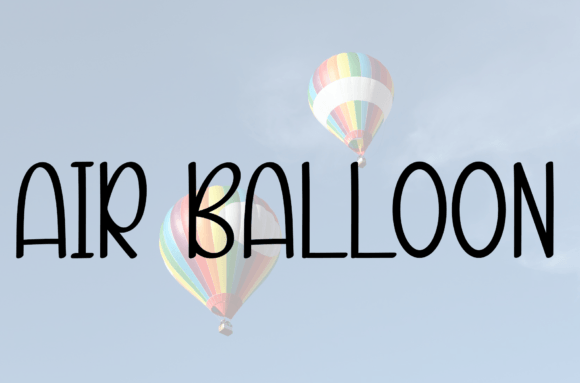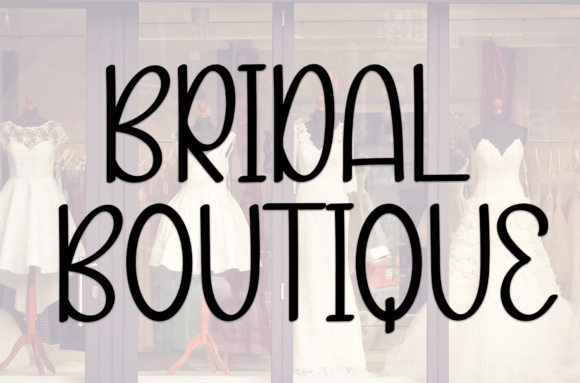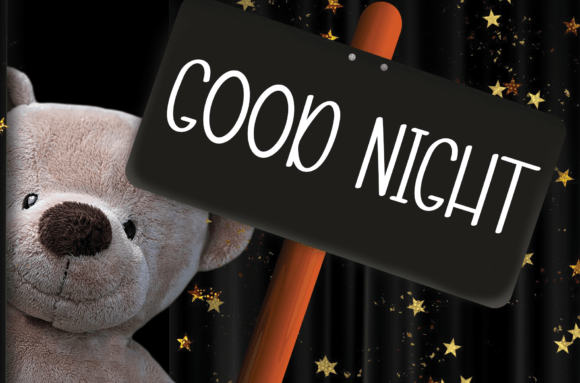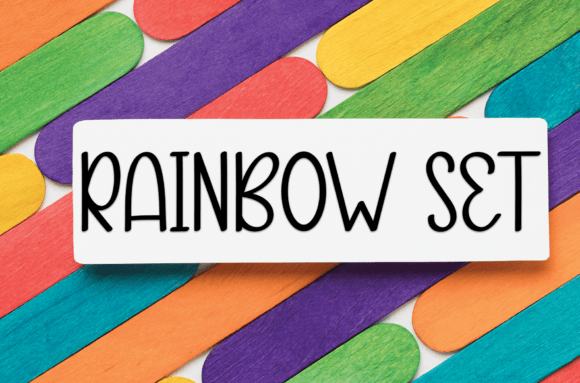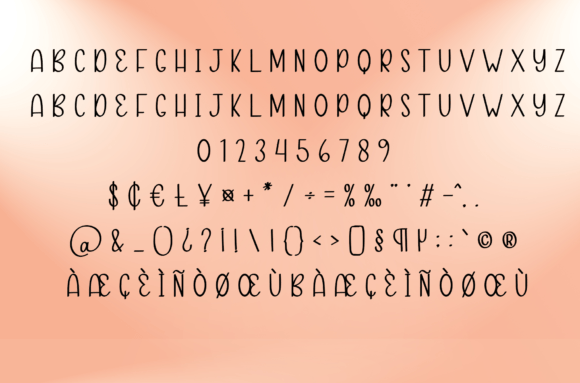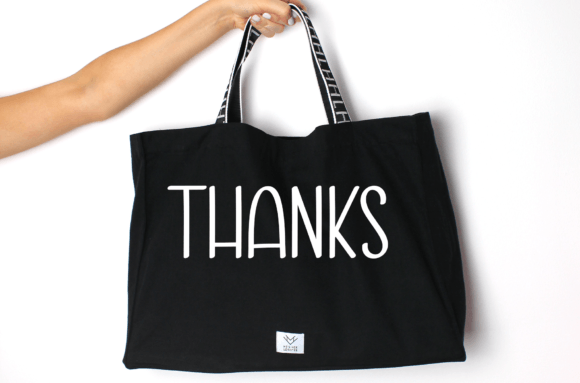
Frog Font: The Sweet and Friendly Handwritten Font for Your Creative Projects
Are you a designer or crafter looking for a font that can add a touch of sweetness and friendliness to your creative projects? Look no further than the Frog Font! This beautiful handwritten font is perfect for creating wedding invitations, cards, and other designs that require a lovely and personalized touch.
What is Frog Font?
Frog Font is a carefully crafted handwritten font that exudes a sense of fun and relaxation. Its sweet and friendly appearance makes it an ideal choice for designers and crafters who want to add a personal touch to their projects. Whether you’re creating wedding invitations, greeting cards, or social media graphics, Frog Font is sure to impress.
Characteristics of Frog Font
Frog Font has several characteristics that make it a standout choice for designers and crafters. Some of its key features include:
- Handwritten appearance: Frog Font has a beautiful, handwritten appearance that adds a personal touch to any design.
- Sweet and friendly: The font’s sweet and friendly appearance makes it perfect for creating designs that require a touch of warmth and personality.
- Fun and relaxed: Frog Font has a fun and relaxed vibe that’s perfect for creating designs that need to be lighthearted and playful.
Uses of Frog Font
Frog Font is a versatile font that can be used for a wide range of creative projects. Some of the most popular uses for this font include:
- Wedding invitations: Frog Font is a popular choice for wedding invitations, as it adds a touch of romance and whimsy to the design.
- Greeting cards: The font’s sweet and friendly appearance makes it perfect for creating greeting cards for special occasions.
- Social media graphics: Frog Font can be used to create social media graphics that require a personal touch, such as Instagram posts and Facebook graphics.
- Branding and packaging: The font can also be used for branding and packaging design, particularly for businesses that want to convey a friendly and approachable image.
Why Choose Frog Font?
There are many reasons why designers and crafters choose Frog Font for their creative projects. Some of the benefits of using this font include:
- Unique and eye-catching: Frog Font has a unique and eye-catching appearance that sets it apart from other fonts.
- Easy to read: The font is easy to read, making it perfect for designs that require a clear and legible font.
- Versatile: Frog Font can be used for a wide range of creative projects, from wedding invitations to social media graphics.
Tips for Using Frog Font
Here are some tips for using Frog Font in your creative projects:
- Use it for headings and titles: Frog Font is perfect for headings and titles, as it adds a touch of personality and whimsy to the design.
- Pair it with other fonts: The font can be paired with other fonts to create a unique and eye-catching design.
- Experiment with colors and textures: Frog Font looks great in a variety of colors and textures, so don’t be afraid to experiment and find the perfect combination for your design.
Frog Font is a beautiful and versatile handwritten font that’s perfect for designers and crafters who want to add a touch of sweetness and friendliness to their creative projects. With its unique and eye-catching appearance, ease of use, and versatility, Frog Font is an excellent choice for a wide range of designs, from wedding invitations to social media graphics. So why not give it a try and see how it can elevate your designs?